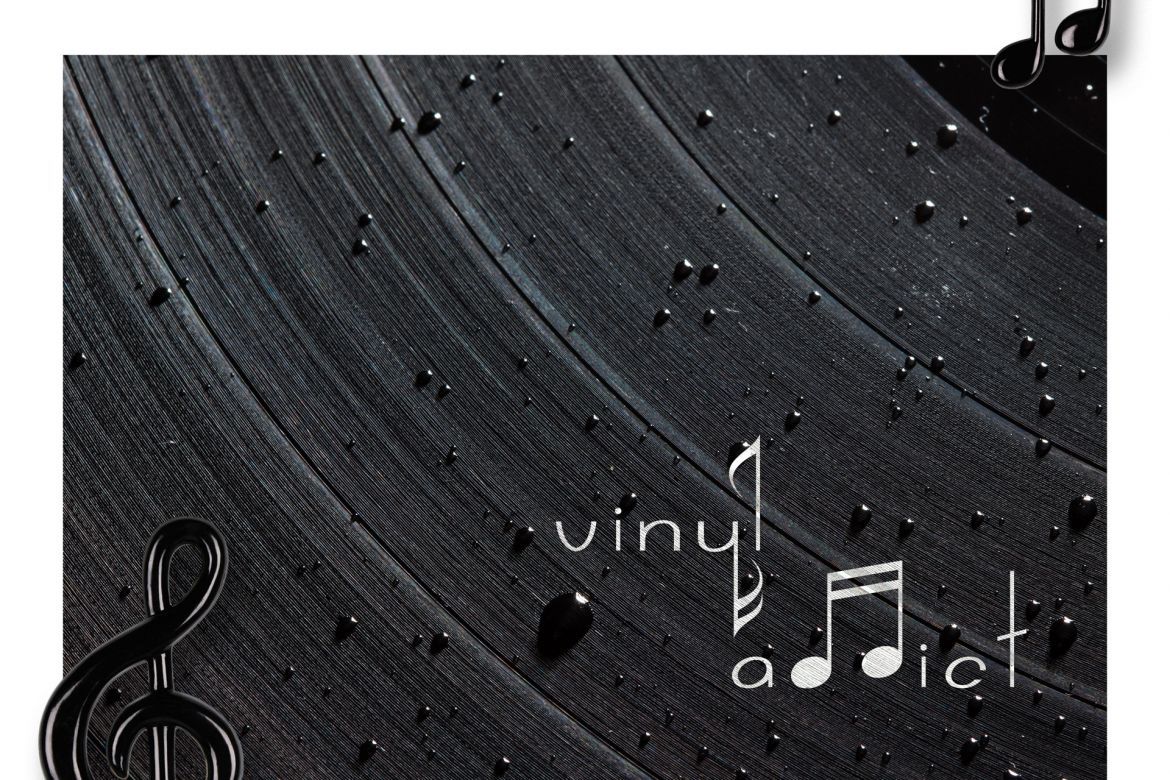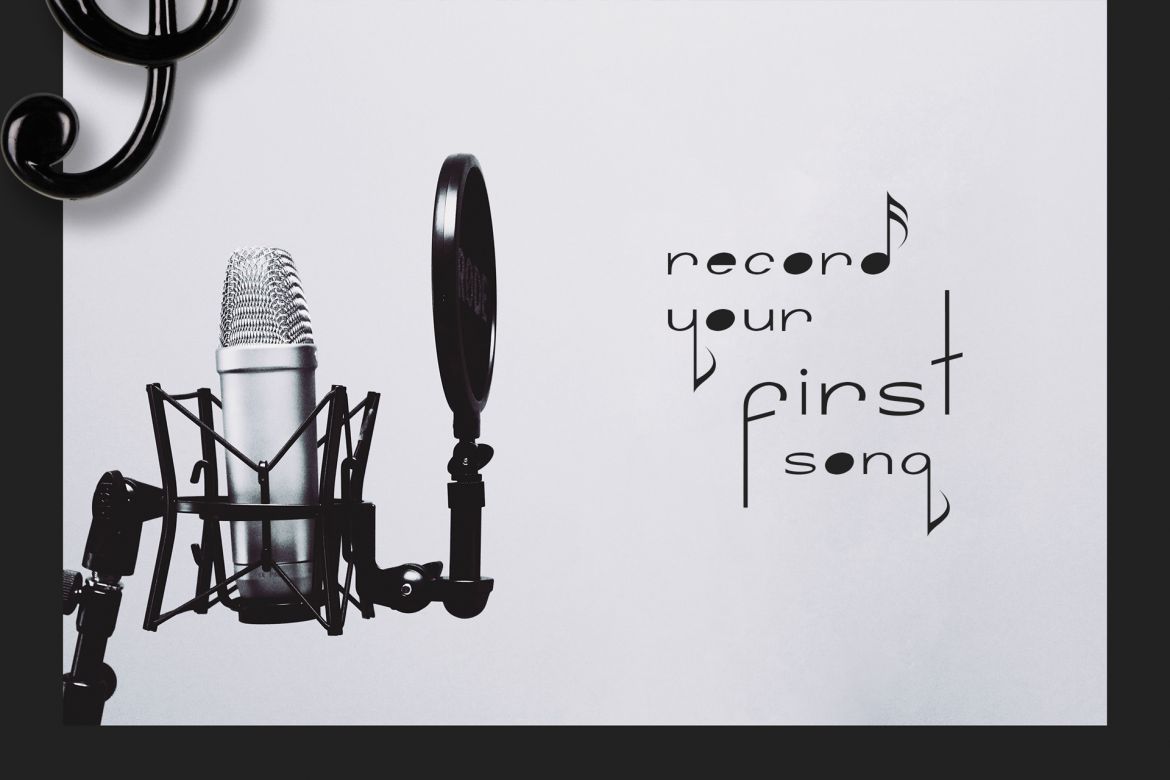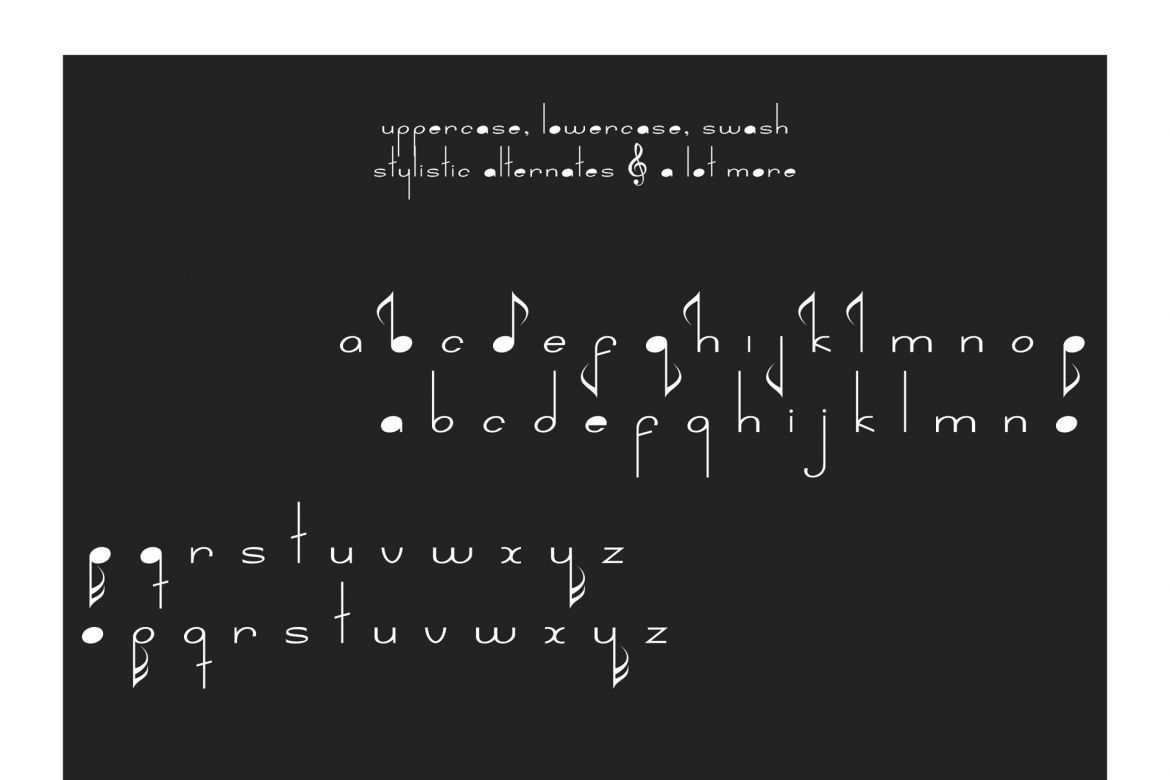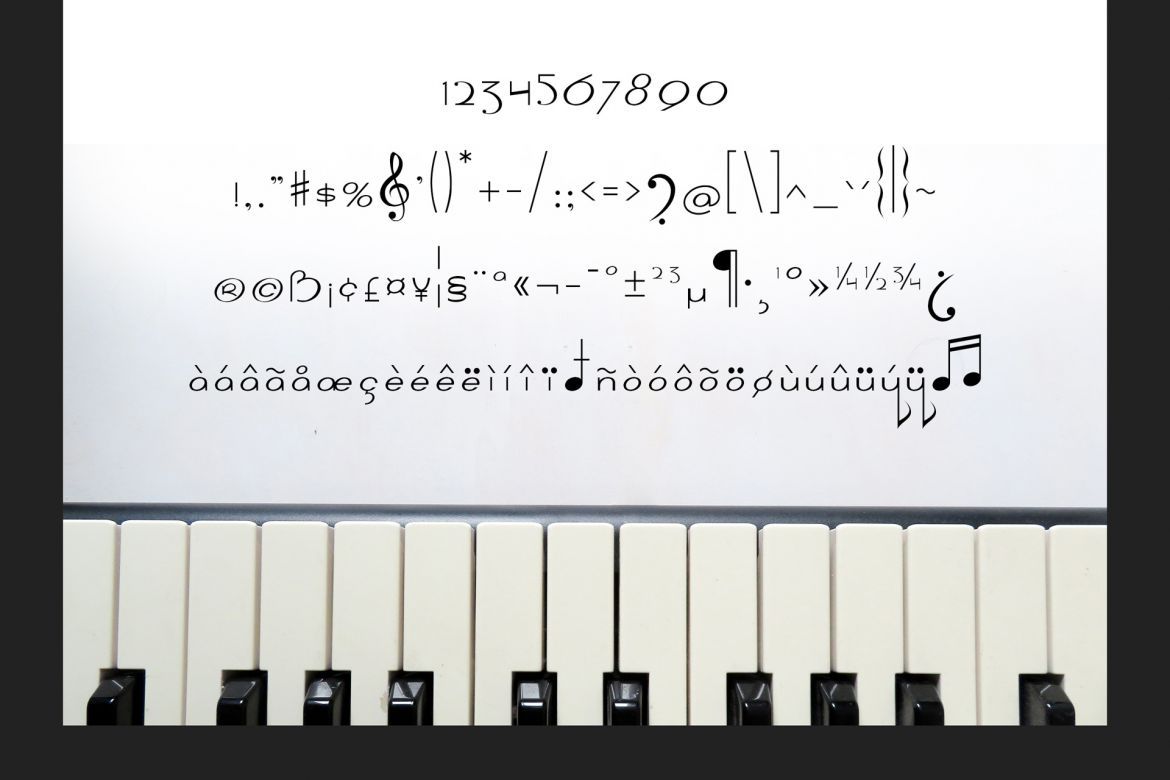
Nada Musical Note Font
Nada Font is inspired by music notes. If an alphabet represents a music note, then a word represents a sound hence a sentence is a melody
Comes with upper and lowercase characters, punctuation, numerals, and supports international languages.
Nada Font perfectly for album cover, poster, product labels, print, branding, social media post, etc
• alternate, ligature, number, punctuation & symbols
• multi language support
• musical font